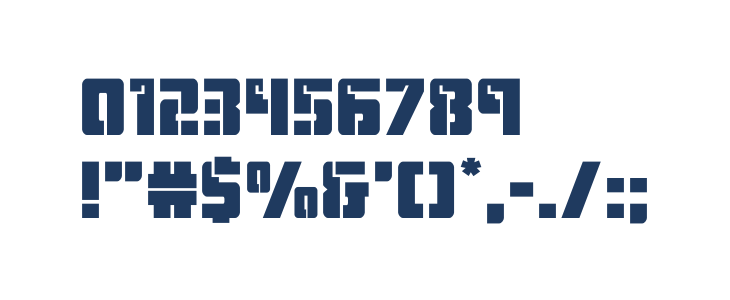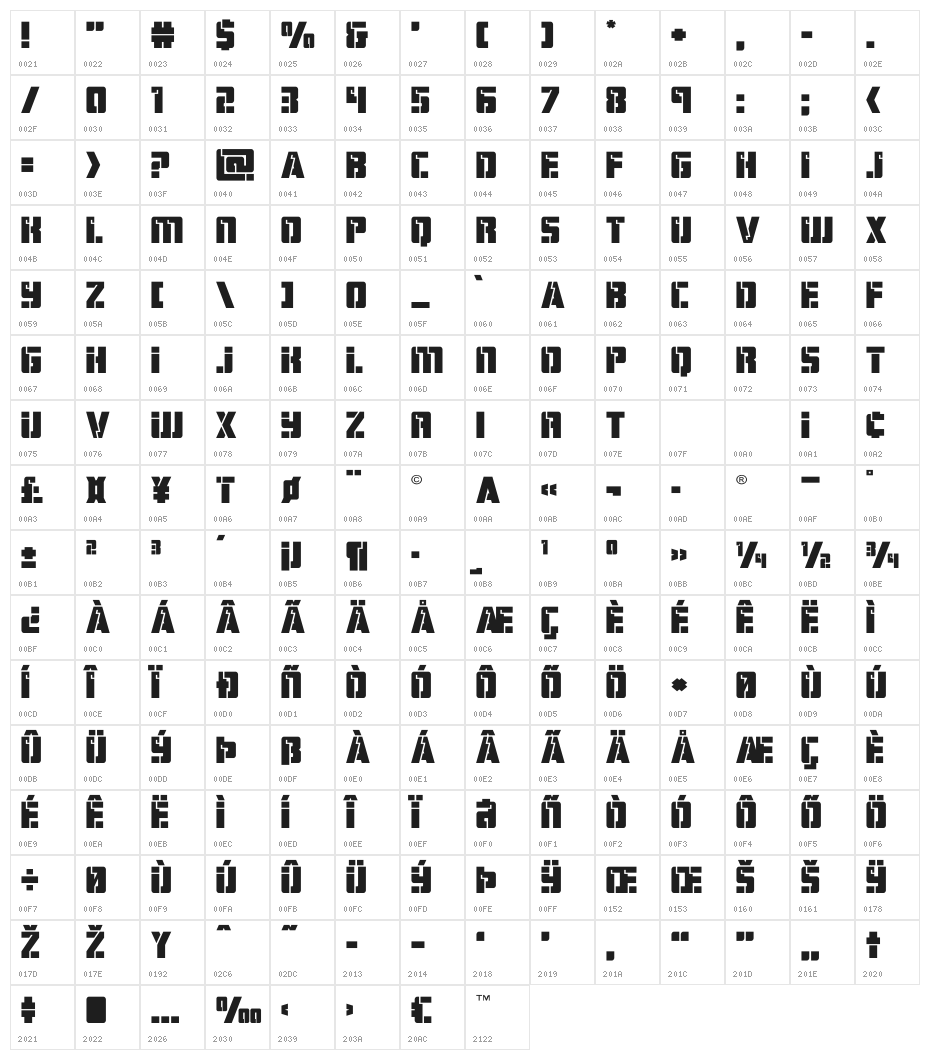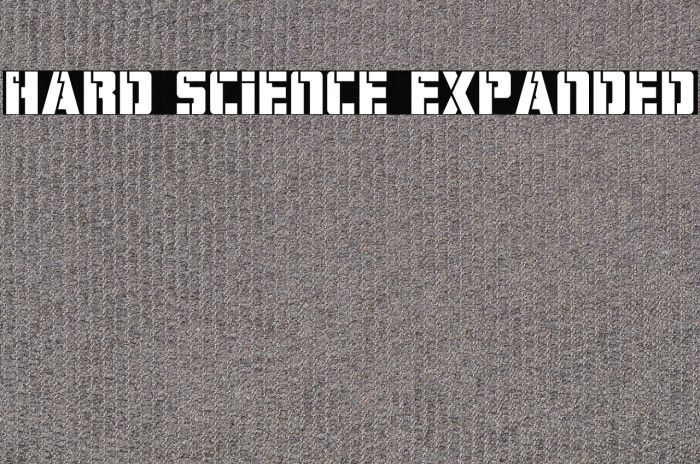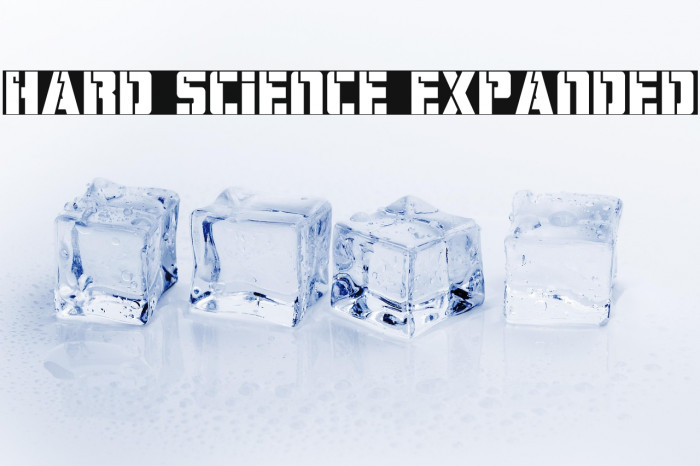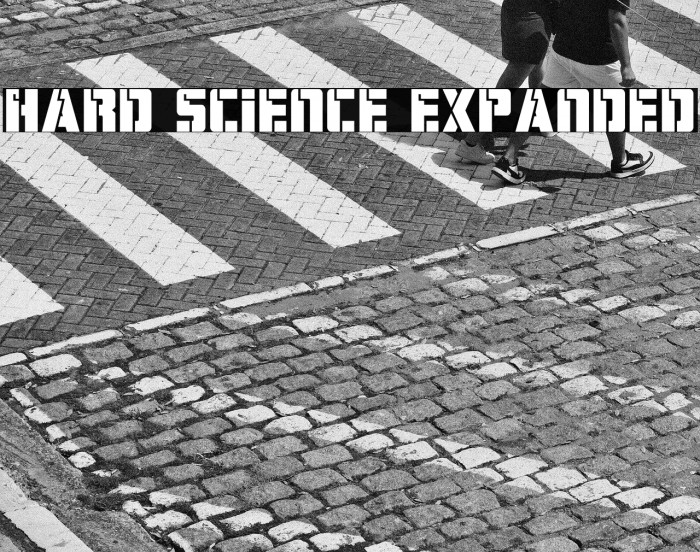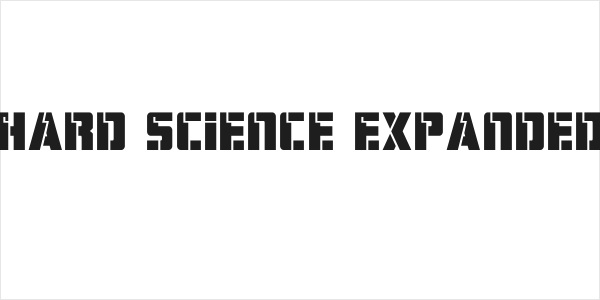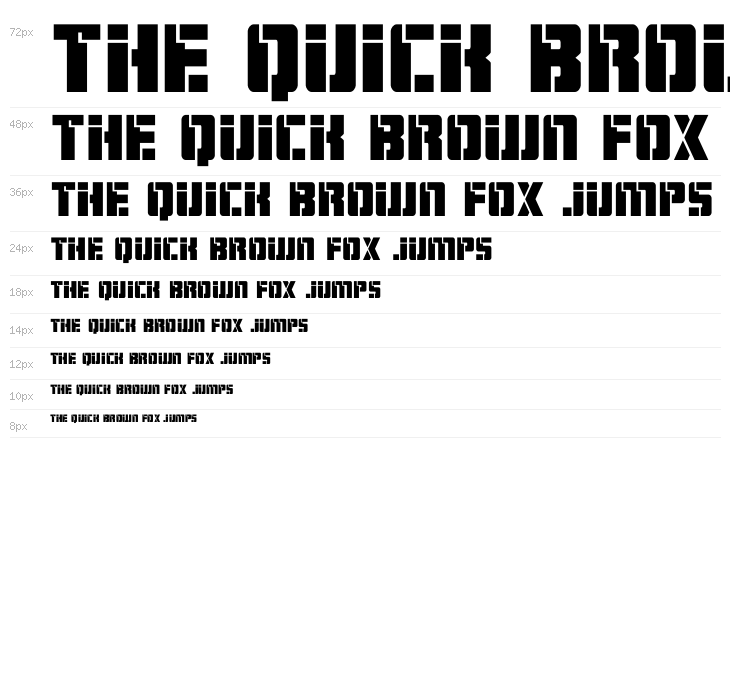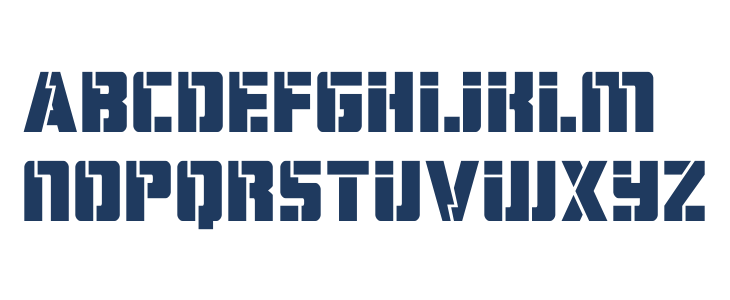
Hard Science Expanded Font
Hard Science Expanded Description
This font features a bold, geometric design with a distinctly futuristic and industrial feel. The characters are constructed with sharp angles and thick, block-like forms, giving them a strong presence on the page. The uppercase and lowercase letters maintain a consistent style, with the lowercase being slightly more compact. Numbers and special characters follow the same design principles, ensuring uniformity across all glyphs. The expanded width of the characters enhances readability and makes a striking visual impact. This font is ideal for projects that require a modern, tech-inspired aesthetic.